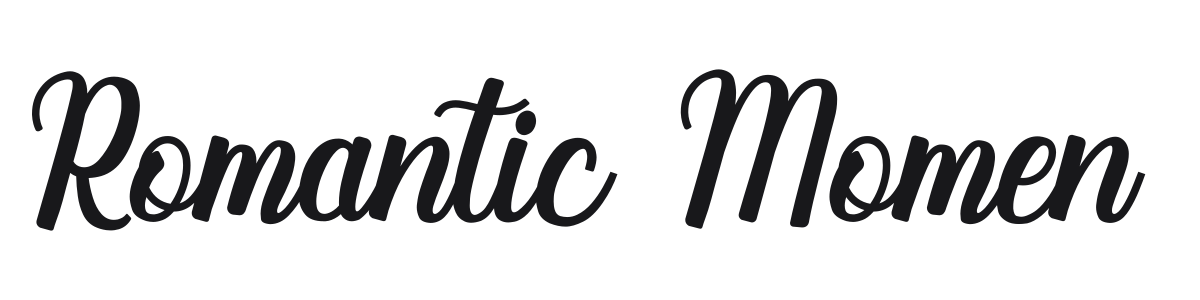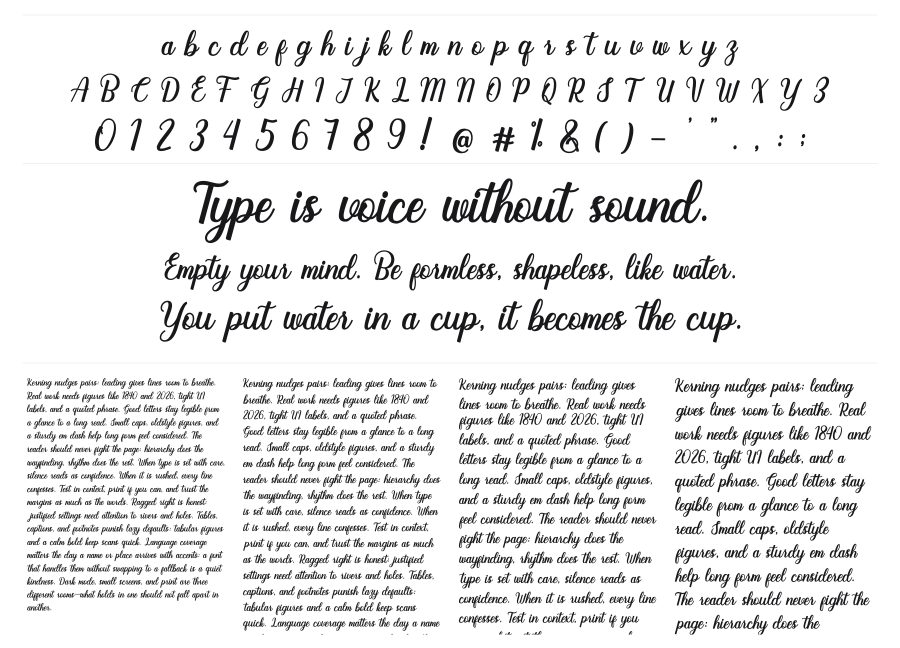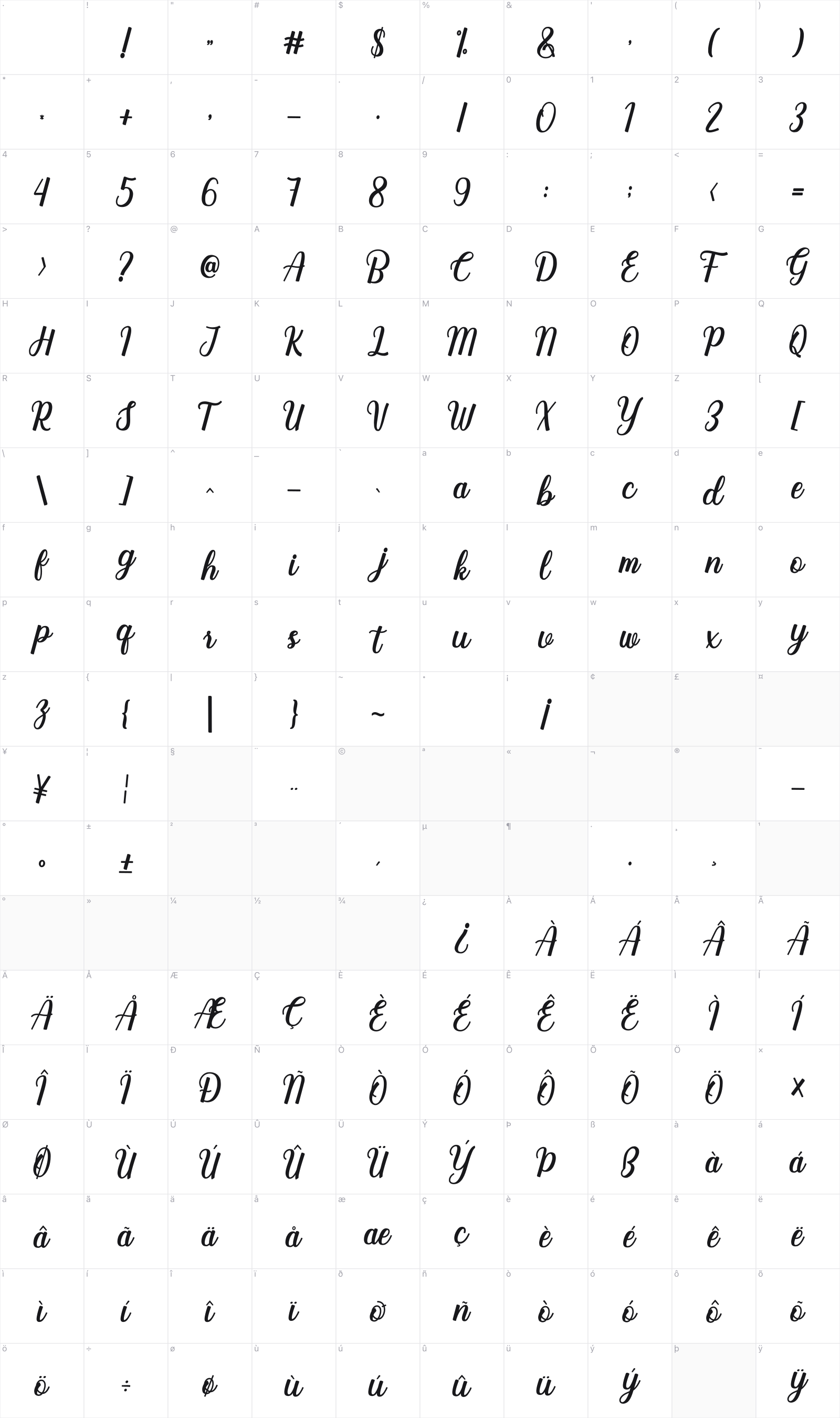
Romantic Momen
Romantic Momen is a bold casual script with flowing connected strokes and a lively handwritten rhythm. Generous loops, sweeping ascenders, and deep descenders give it an energetic, warm personality that reads as both informal and expressive. It suits logotypes, packaging headlines, and any design that needs a human, hand-lettered touch.